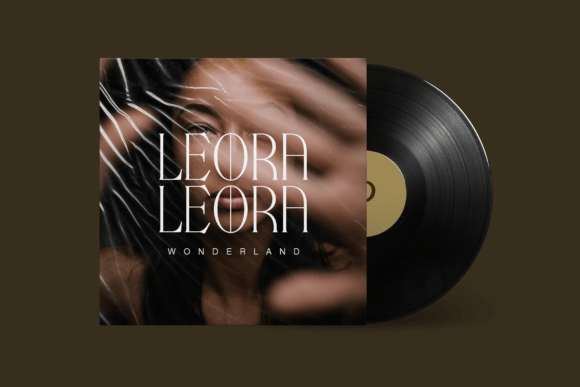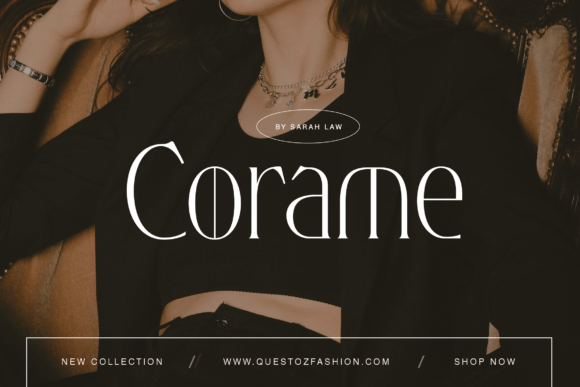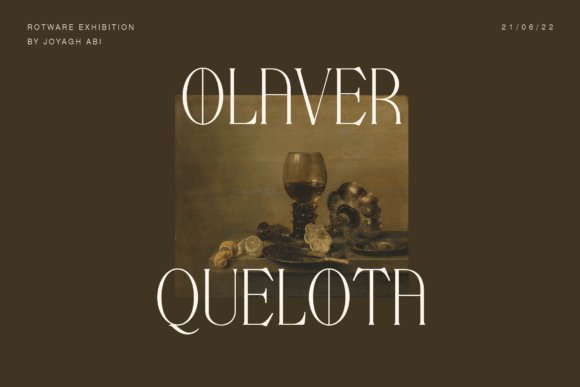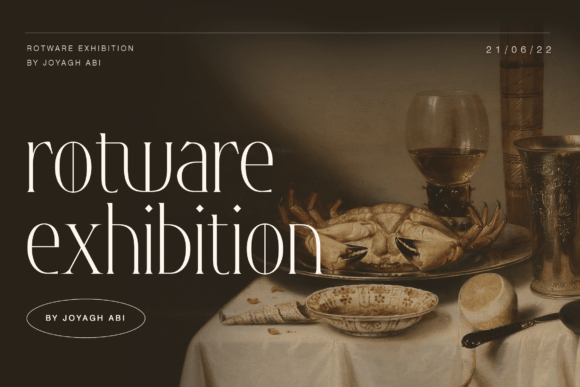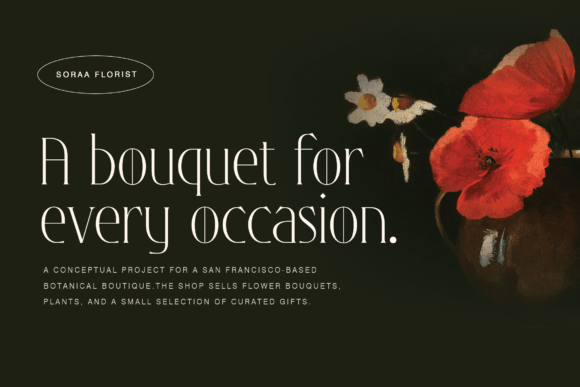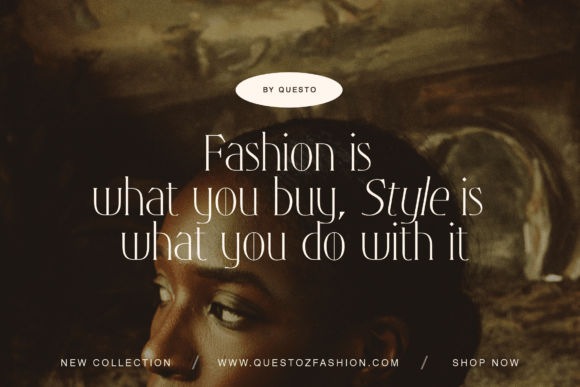
Introduction to Sequeltoz Font
Sequeltoz is a Classic Serif font perfect for your upcoming projects.
Such as luxury logo and branding, classy editorial design, woman magazine, cosmetic brand, fashion promotional, art gallery branding, museum, historical architecture, boutique branding, stationery design, blog design, modern advertising design, card invitation, art quote, home decor, book/cover title, special events and any more This font is PUA encoded which means you can access all of the amazing glyphs and ligatures with ease.